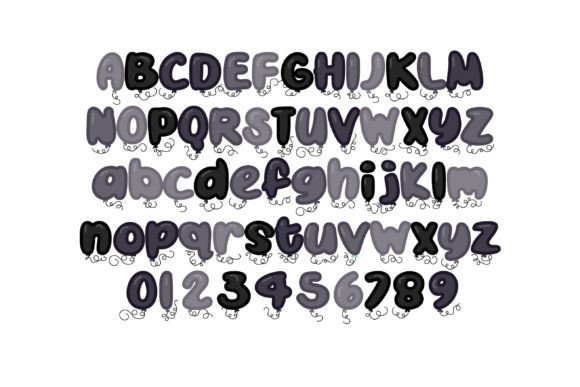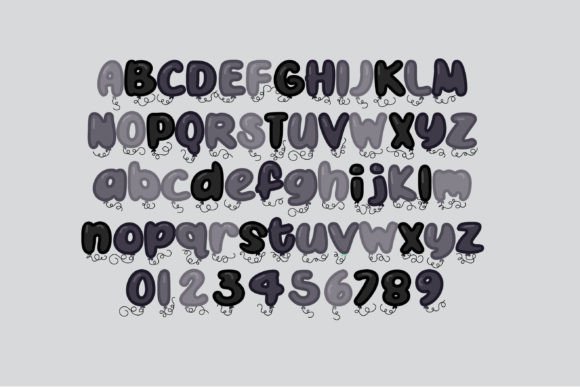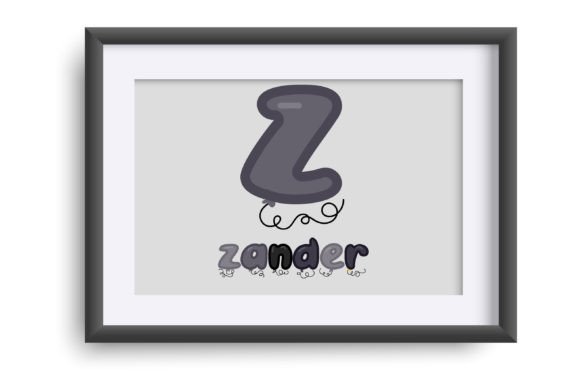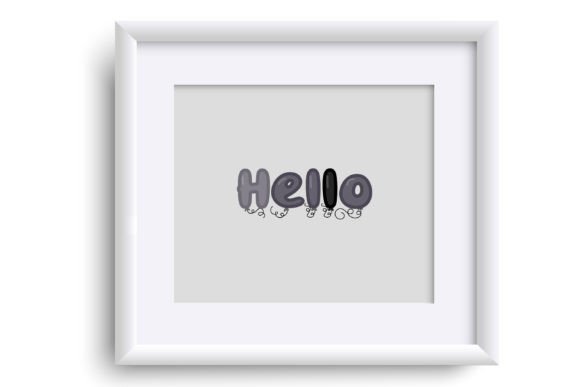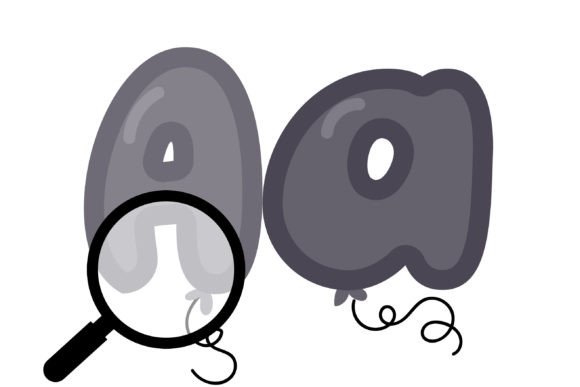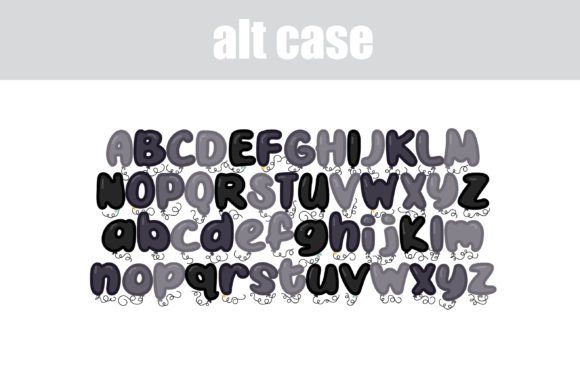
Introducing Helium – Over the Hill Font: A Vibrant and Playful Addition to Your Design Toolkit
Are you looking for a unique and eye-catching font to add a touch of personality to your designs? Look no further than Helium – Over the Hill Font, a full-color font featuring black and gray helium balloons that are perfect for Halloween or celebrating someone who is over the hill. In this article, we’ll take a closer look at this exciting font and explore its features, benefits, and uses.
What is Helium – Over the Hill Font?
Helium – Over the Hill Font is a full-color OpenType font that features black and gray helium balloons, perfect for adding a playful and festive touch to your designs. The font comes with an alt case that includes additional colors, which can be accessed through your system or Silhouette’s glyph map. This means you can easily switch between different colors and styles to create a unique look that suits your project.
What is an OpenType Full-Color (SVG) Font?
Helium – Over the Hill Font is an OpenType full-color (SVG) font, which means it uses SVG (Scalable Vector Graphics) technology to display a range of colors and styles. This type of font is perfect for designers who want to add a touch of personality to their work, as it offers a level of flexibility and creativity that’s hard to achieve with traditional fonts.
Benefits of Using Full-Color SVG Fonts
Full-color SVG fonts like Helium – Over the Hill Font offer a range of benefits for designers, including:
- Increased creativity: With a full range of colors and styles to choose from, you can create unique and eye-catching designs that stand out from the crowd.
- Scalability: SVG fonts are scalable, meaning they can be used in a range of sizes and resolutions without losing quality.
Tips for Using Helium – Over the Hill Font
Here are a few tips for getting the most out of Helium – Over the Hill Font:
- Experiment with different colors: The alt case feature in Helium – Over the Hill Font offers a range of additional colors to choose from. Experiment with different colors and styles to create a unique look that suits your project.
- Use it for Halloween or birthday designs: The helium balloons in Helium – Over the Hill Font make it perfect for Halloween or birthday designs. Use it to create eye-catching invitations, party decorations, or social media graphics.
- Combine it with other fonts: Helium – Over the Hill Font can be combined with other fonts to create a unique and interesting look. Try pairing it with a bold sans-serif font for a striking contrast.
Helium – Over the Hill Font is a unique and playful addition to any design toolkit. With its full-color helium balloons and alt case feature, it’s perfect for adding a touch of personality to your designs. Whether you’re a designer, crafter, or DIY enthusiast, Helium – Over the Hill Font is a great choice for anyone looking to create eye-catching and festive designs. So why not give it a try and see what creative possibilities it offers?